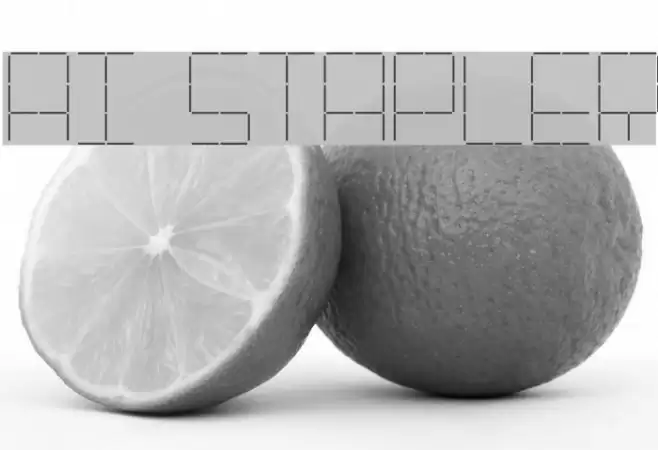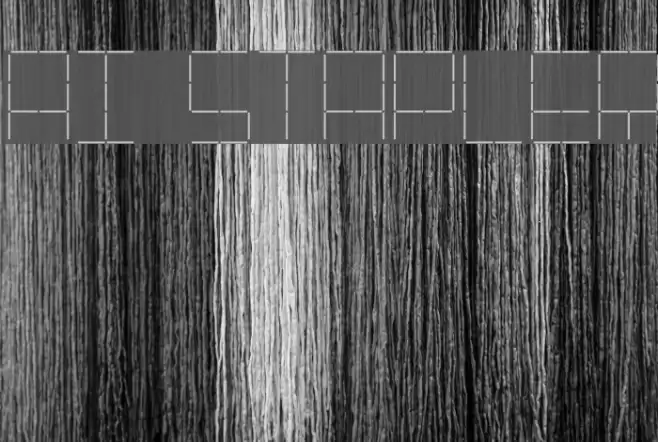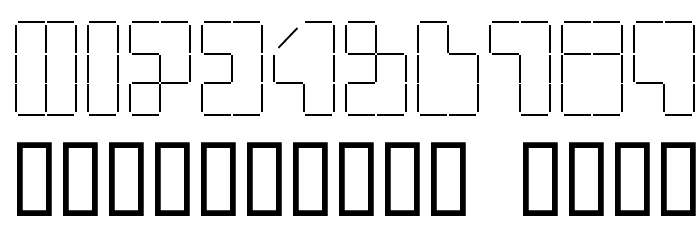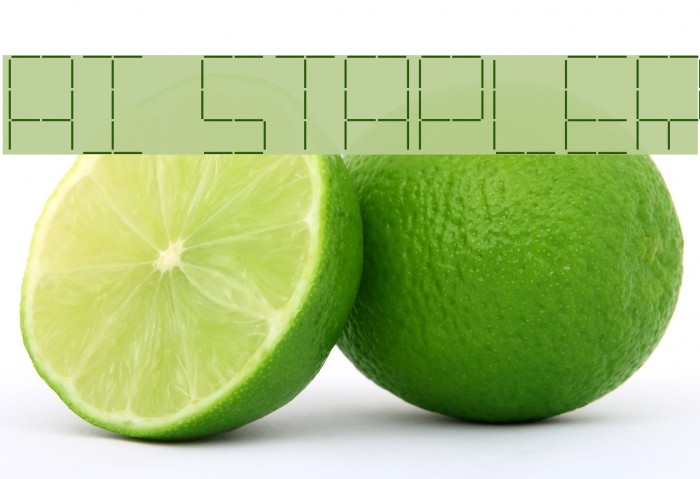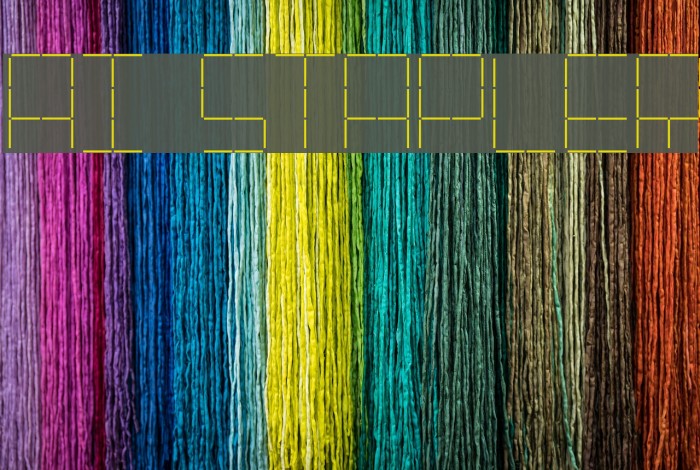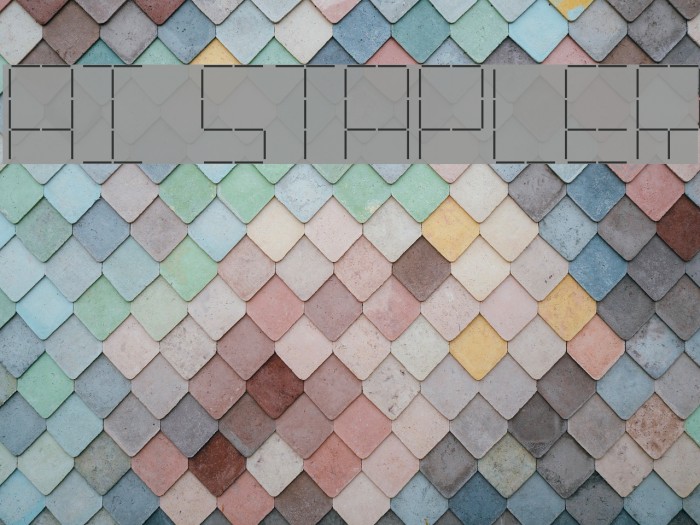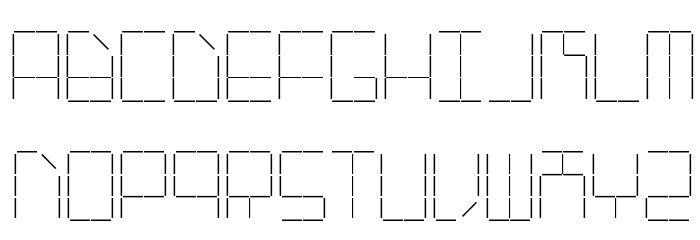
AI stapler Font
AI stapler Description
This font features a unique, geometric design with a digital, futuristic aesthetic. Each character is constructed using a series of straight lines and angles, resembling a digital display or a stencil-like appearance. The uppercase and lowercase letters maintain a consistent height, giving the font a uniform look. The numbers and special characters follow the same design principles, ensuring a cohesive style throughout. The font's structure is reminiscent of early digital or LED displays, making it ideal for projects that require a modern, tech-inspired look.
- Proposed Projects: Ideal for digital interfaces, tech branding, futuristic posters, and electronic-themed designs.